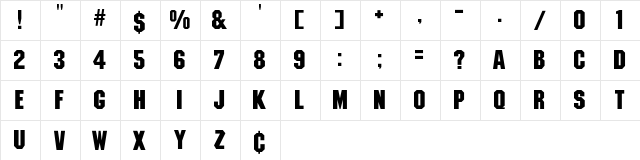
Edison Block Regular
Edison Block takes a measured approach to typography — its balanced proportions and neutral character make it a reliable workhorse for both digital and print work.